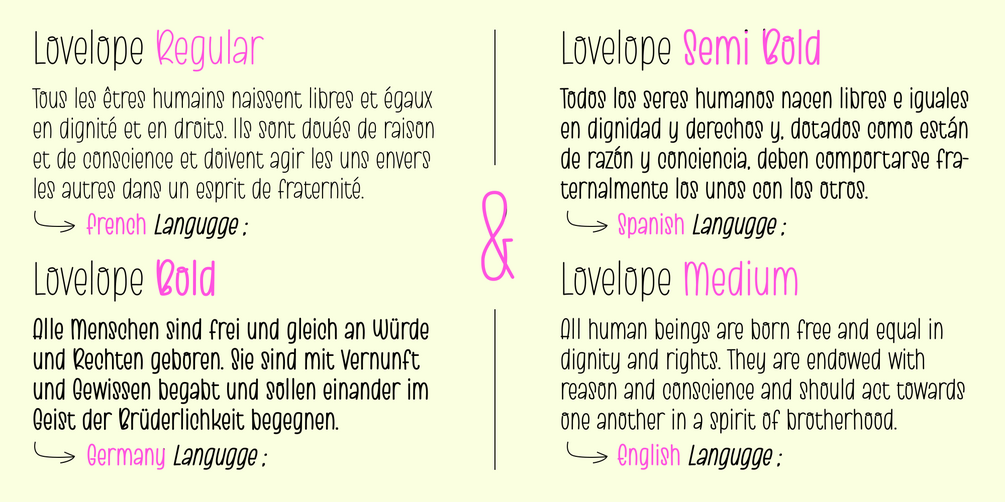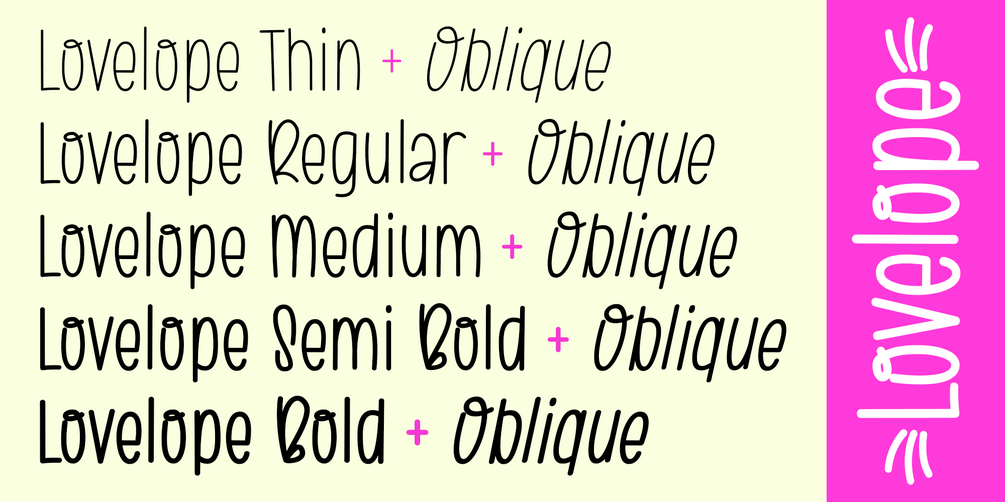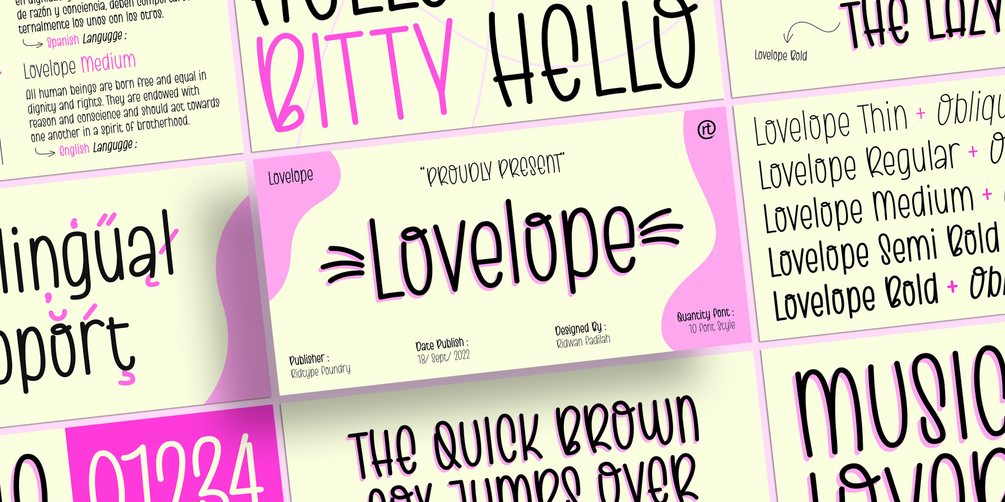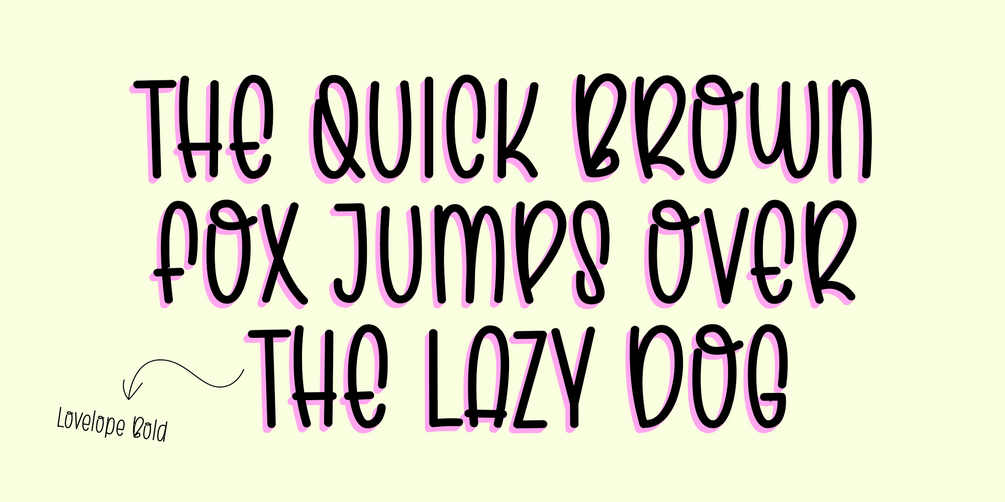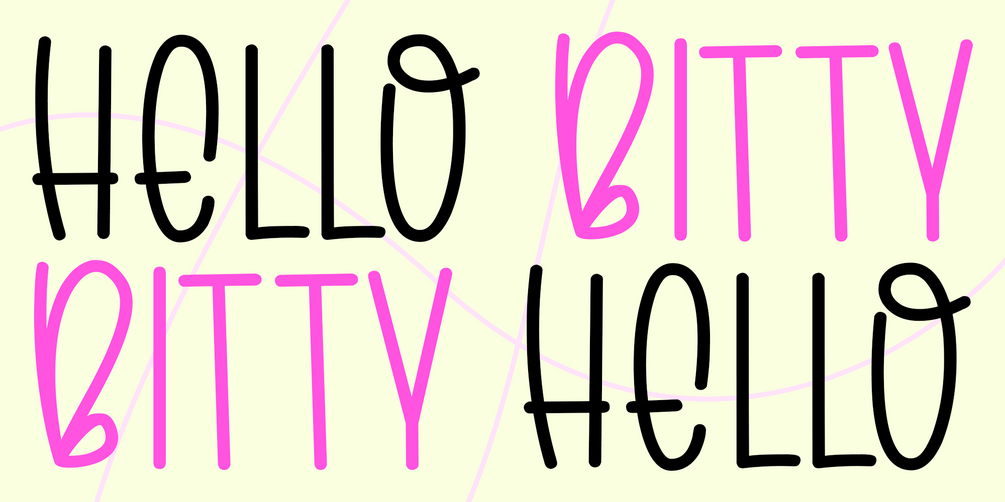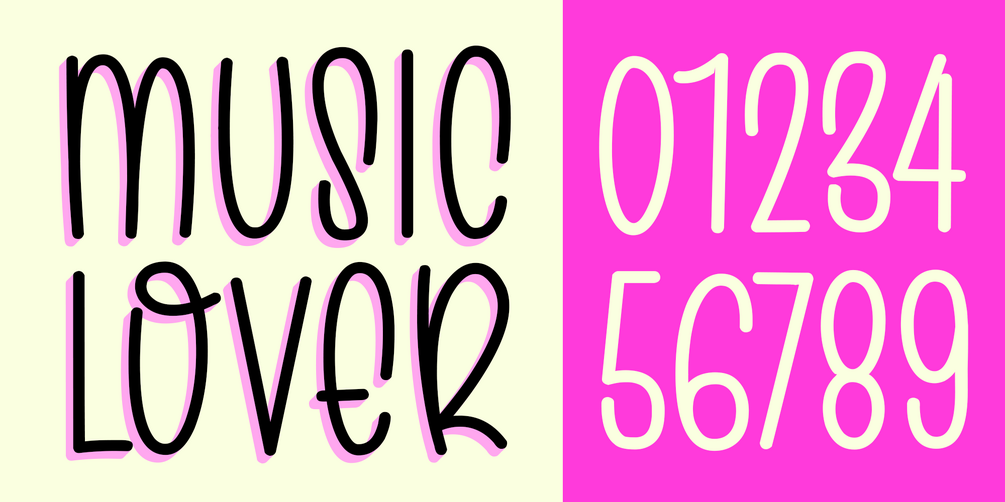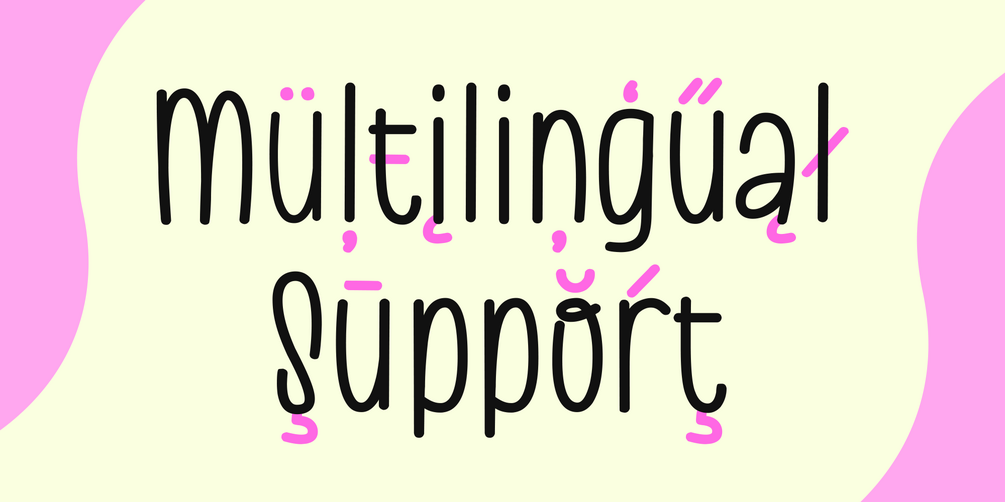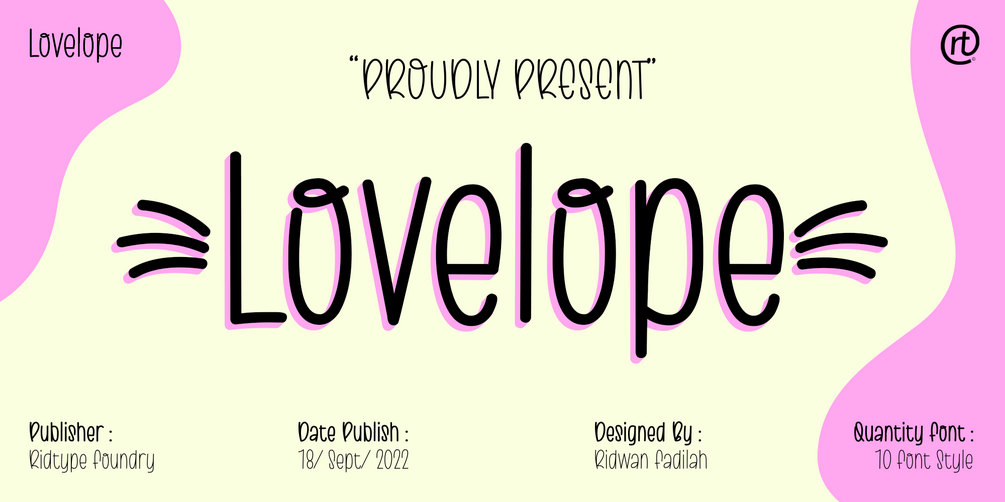
Lovelope
Lovelope is a cute handwriting sans serif style.
This font is inspired by the expression of happiness from the activities carried out by a little girl in the expression of joy. So we created these fonts to get and feel what they feel.
Details Font : Condensed Handwritting